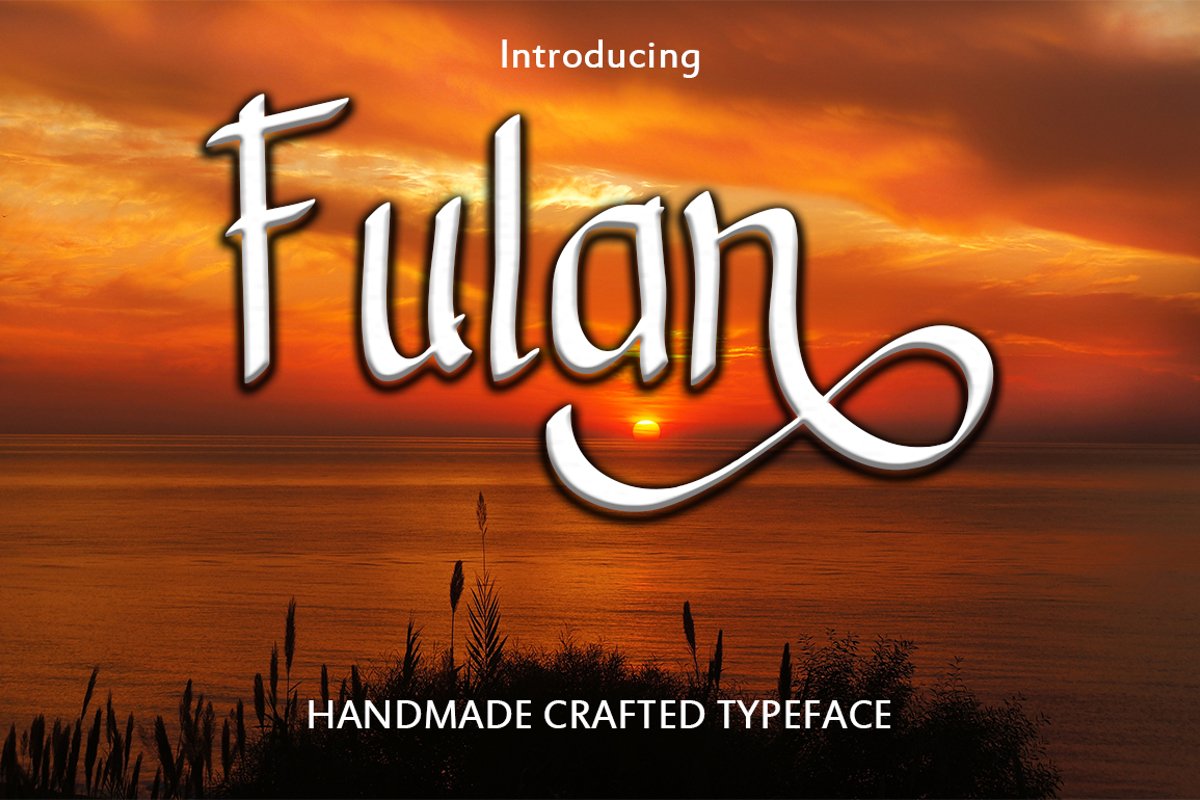
Fulan is handmade Modern style font .
Very cool for logos, name tag, handwritten quotes, product packaging, merchandise, social media & greeting cards. And very easy to make design t-shirts and other products. Very save time in making the design of a product. It contains a full set of lower & uppercase letters, a large range of punctuation, numerals, and multilingual support.Whats Include :